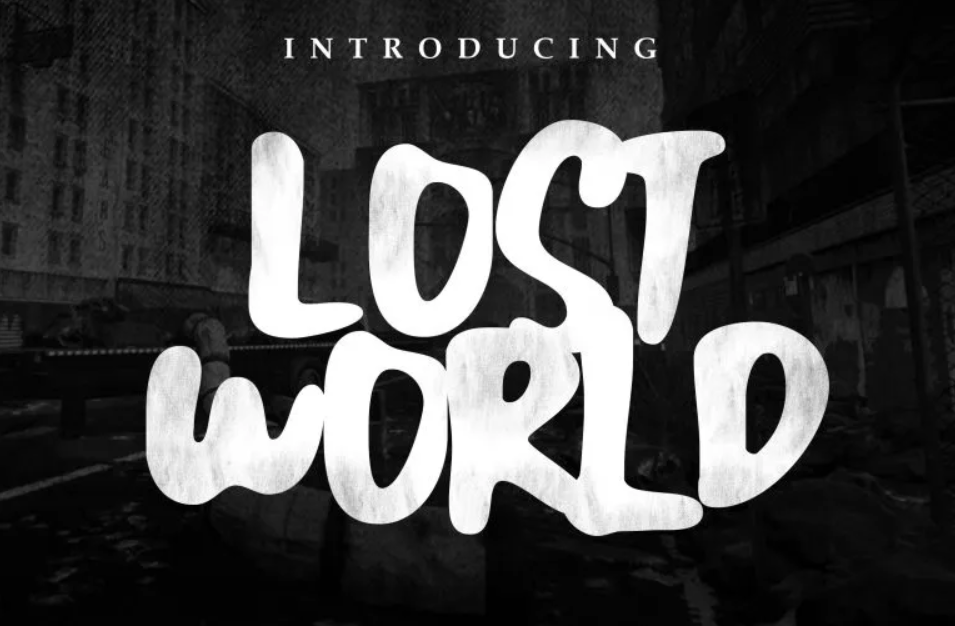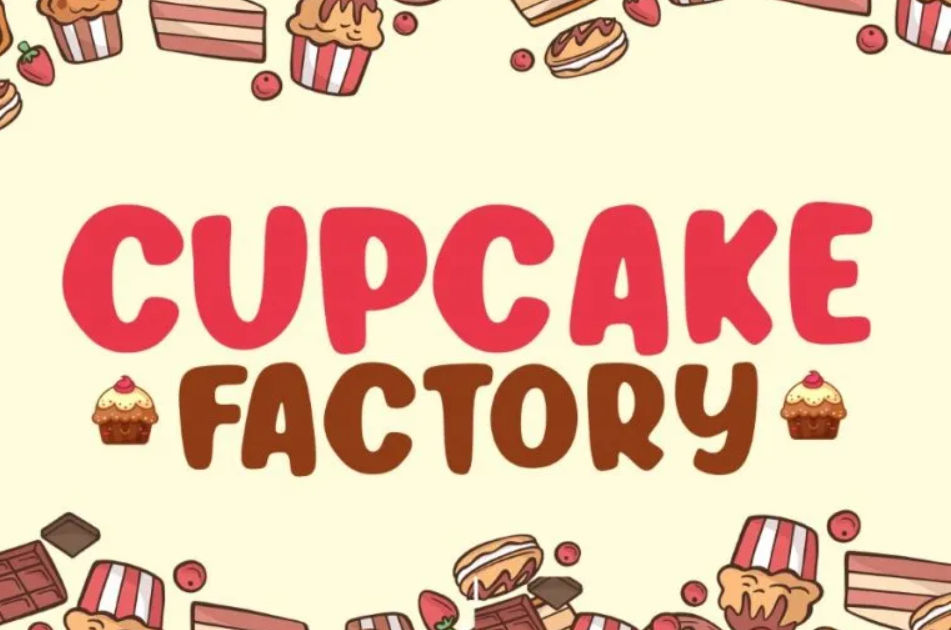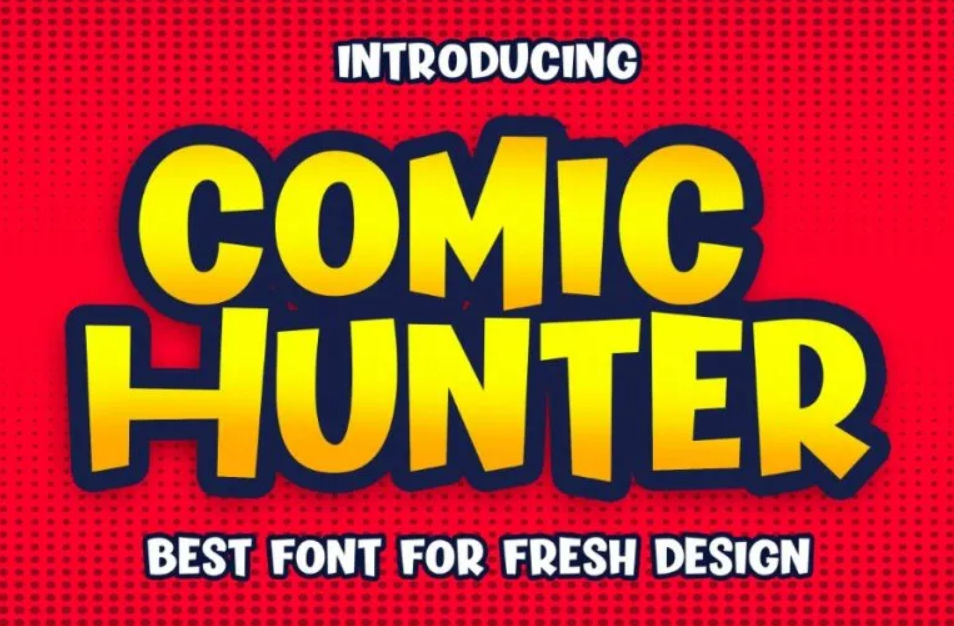
The best fonts for ui ux design prioritize good user experience through their high readability and accessibility. Yet, those characteristics should not hinder visual attractiveness. Our fonts can help you to optimize user-friendliness and decorate your designs with their unique styles.
Key Takeaways:
- The used fonts for ui/ux designs must be user-friendly.
- Fonts for ui/ux designs possess simple letter forms and clear boldness.
What Are The Best Fonts for Ui Design?
- Combine sans serif and serif to create a complimentary contrast;
- Show less complex strokes and less striking colors;
- Appear simply to avoid frustrating loading time for your audience;
- Have considerate weights and sizes for visual hierarchy;
- Maintain accessibility in any kind of device;
- Deliver the mood and the message that represents you accurately.
Our 25 Readable and Stylish Fonts for Good UI/UX Designs
Good UI/UX designs always focus on using readable fonts, but it is not wrong to consider the visual aspect of them. Here is the list of legible and eye-catching fonts we have chosen for you.
1. MAXIM Font
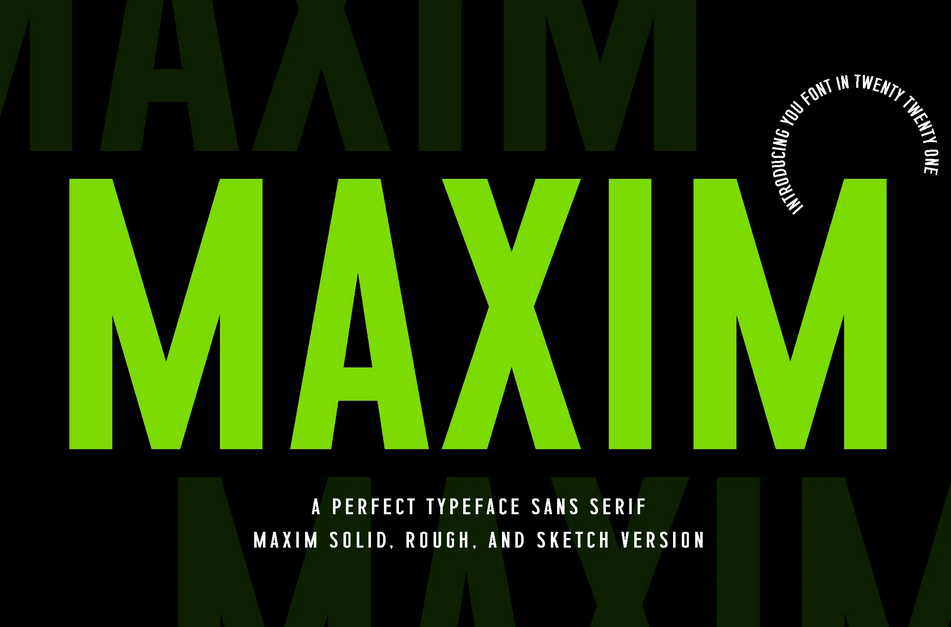
Maxim’s solid boldness and clarity can establish a powerful presence in your brand. You can also use this sans-serif font for sport-themed logos and magazine titles.
2. Modern Deluxe Font
Modern Deluxe’s slender letter shapes contribute to the font’s luxurious and classy appearance. It has three versions, regular, outline, and smooth.
3. ZEMBOOD
Zembood’s textured appearance resembles pine trees under falling snow. The font’s heavyweight and clean lines increase readability, too.
4. Amsterdam Serif
Amsterdam Serif dedicates its careful contrast and classic serifs to a vintage look. The strong-personality font also has two versions: the regular and the oblique ones.
5. Night Mango
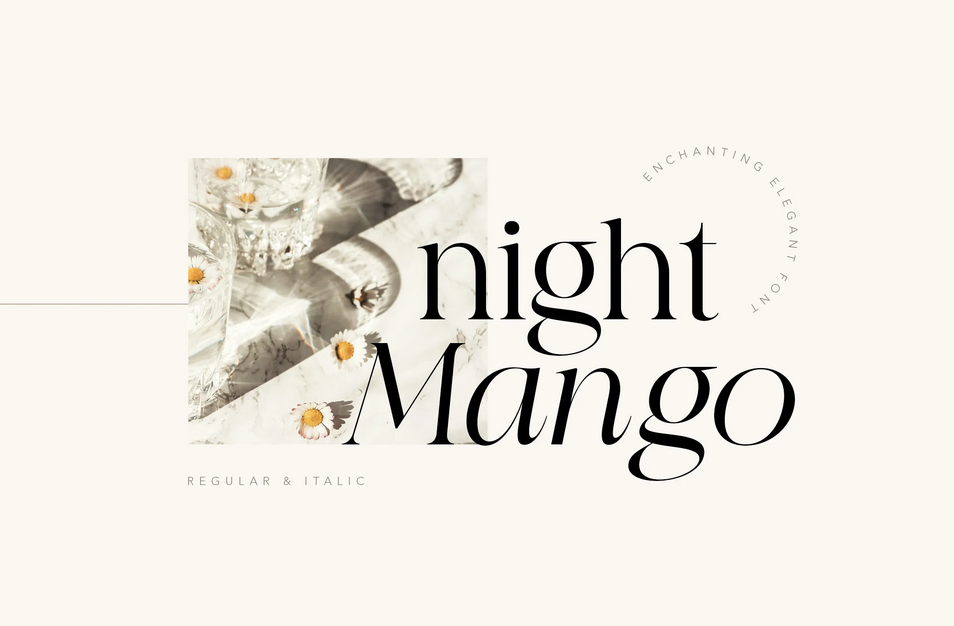
Night Mango is one of the best fonts for ui ux design with contemporary letterforms style. Combine the serif and the italic version of the font to create a compelling look.
6. Almond
Almond’s steady rhythm and delicate contrast on the font’s legs are both elegant and stylish. Take advantage of the simplicity to increase the readability of your website text.
7. Today Easter
Today Easter’s thin letter stroke shave no decorations Display the wide ovals and long legs to emphasize both clean visual and excellent legibility.
8. Aged Machine
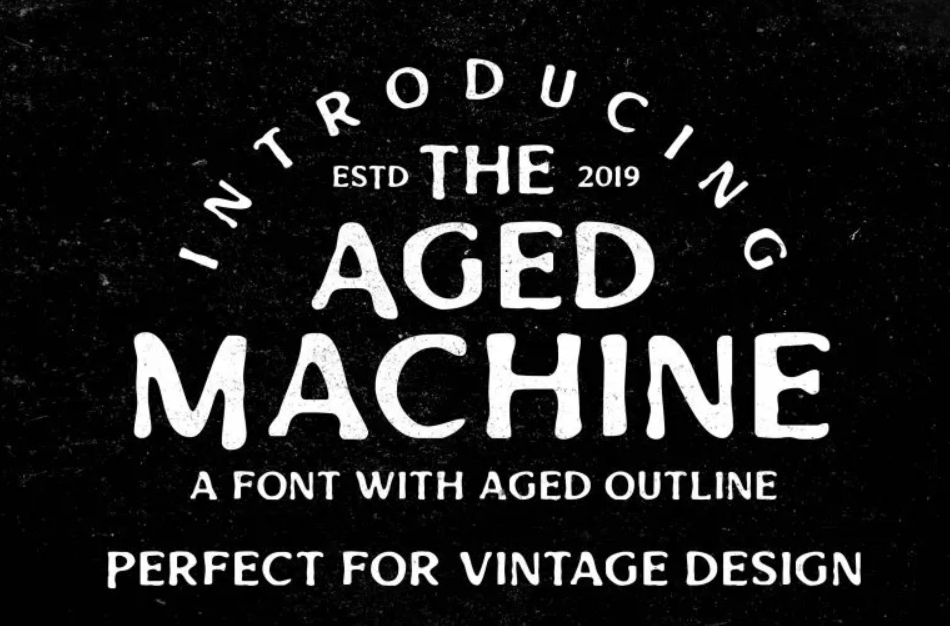
Aged Machine’s charm is the stylish letter shapes and galactical-debris-like texture. Use the bold font for more readability and vintage personality for a digital banner.
9. Better Chalk
Better Chalk’s rough strokes and modest ligatures are not only legible but attractive. Use the font for heading in your web or app to better engage with your audience.
10. Cupcake Factory
Cupcake Factory’s balanced contrast and narrow ovals showcase playfulness and share pleasure with your audience. Its uneven letter weight attracts the attention.
11. Comic Hunter
Comic Hunter’s contemporary baseline and stylish letter shapes are perfect for a casual vibe. The font’s outlined edges also help with readability.
12. Friday Font
Friday’s plain appearance is its greatest strength. Its heavy weight provides boldness without compromising readability, ideal for landing pages or headlines.
13. Adventours
Adventours takes you on an adventure with its versatile strokes and rough edges. Use the font’s bouncy baselines on your clothing-themed or tourism websites.
14. HALVA
Halva takes the appearance of Arial, one of the most used fonts for UI design because of its simple letter shapes with the absence of decorations.
15. Grooving
You can leverage Grooving to exhibit boldness, style, and readability with its stylish letter forms and textured strokes combination.
16. Wild Nature
The clean lines of Wild Nature ensure the legibility of text for headlines on the web or apps. Additionally, the dirt-like texture embodies the sensation of wildlife in nature.
17. Western Retro
With its modern swashes and decorative strokes, Western Retro suits retro-themed designs. Its decorations won’t challenge the readability. Rather it brings unique experience.
18. Inzomniac
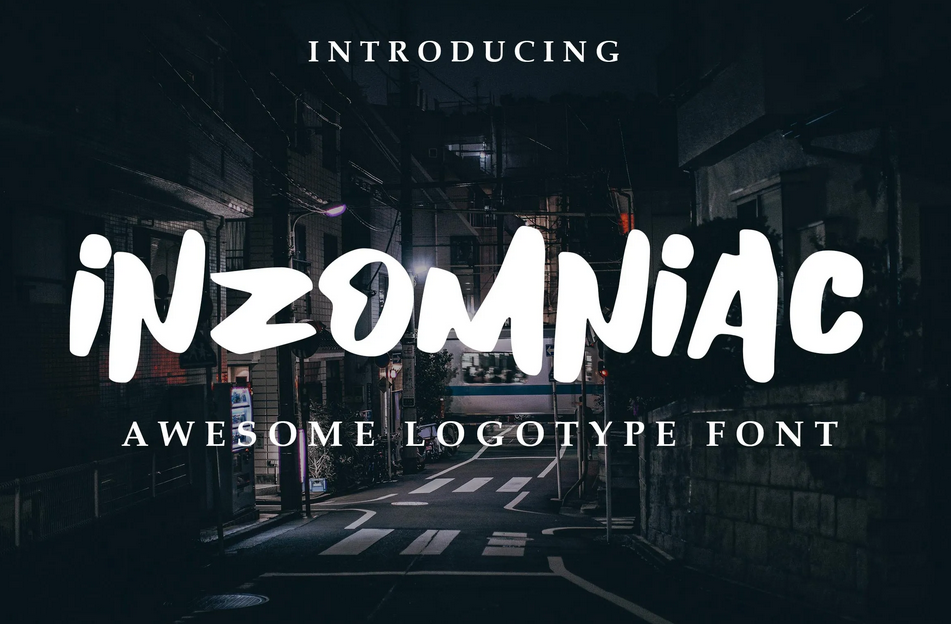
Inzomniac’s interesting letterforms emphasize your brand’s unique personality. Use the font’s stable boldness for unwavering connections with your audience.
19. Urban Nation
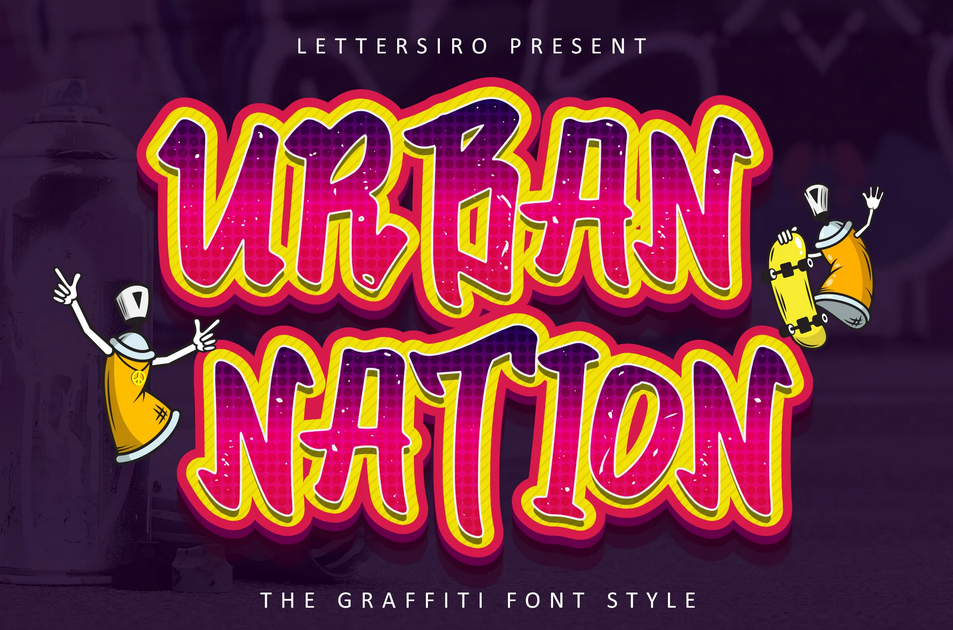
Urban Nation’s letter shapes are abstract with dramatic outlines. Showcase the font’s heavyweight and modern serif for more unconventional appearances.
20. Gojira Black
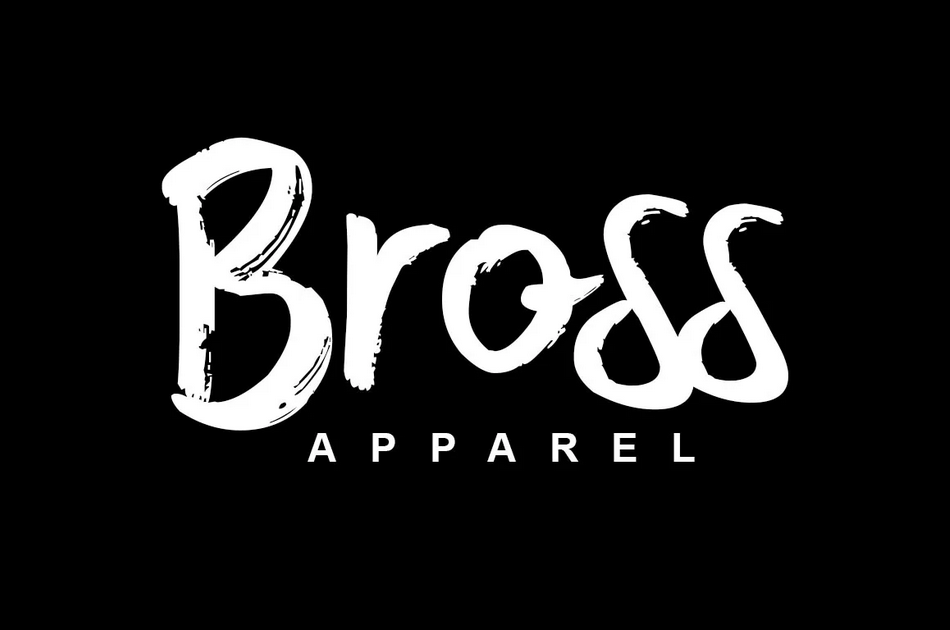
Bross’ rough lines are as phenomenal as gojiras. The font’s unique letter shapes and boldness can express your brand’s eccentric and friendly personality accurately.
More Fonts for Your UI/UX Designs
The best fonts for ui ux design never confuse your audience with their sophisticated strokes and complex decorations. They need to prioritize readability through their balanced contrast. However, stylish letter shapes are also important to enhance your designs’ visual attractiveness.